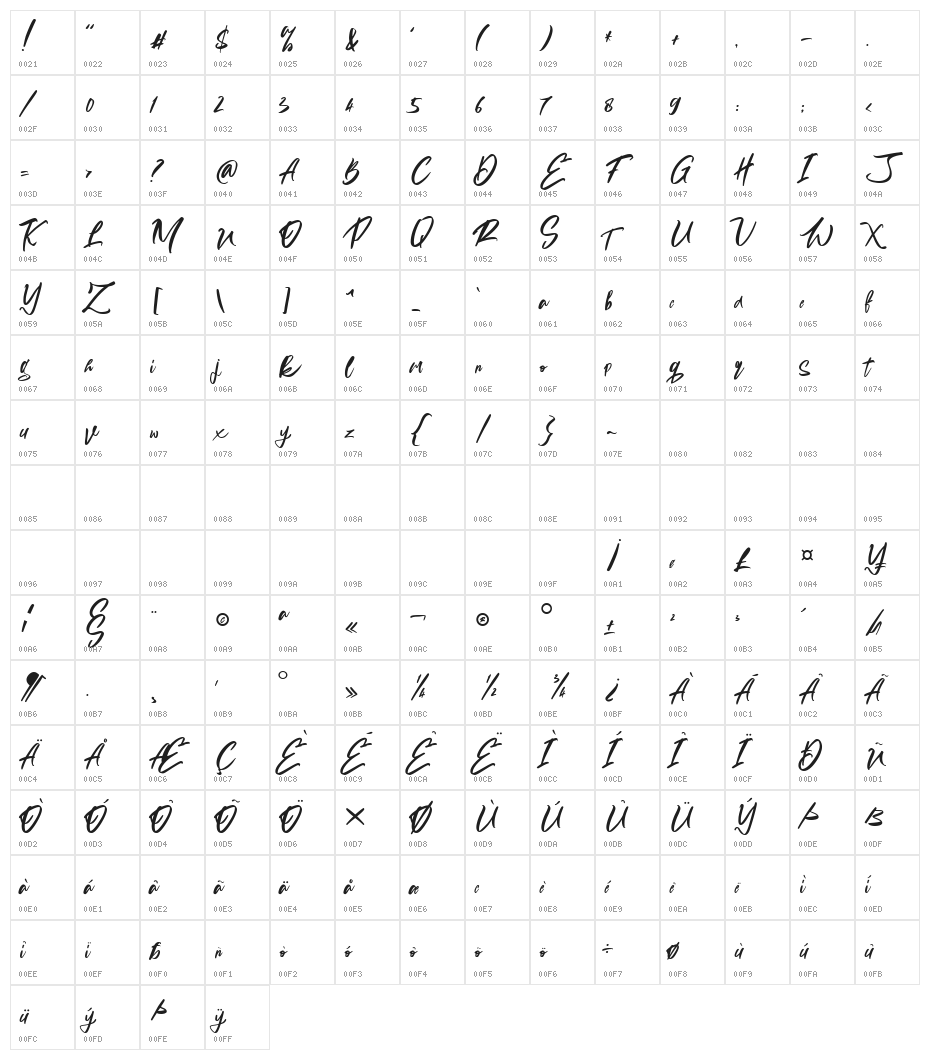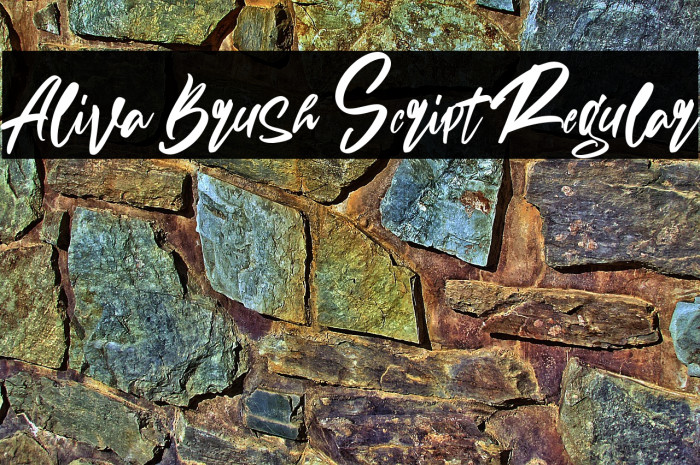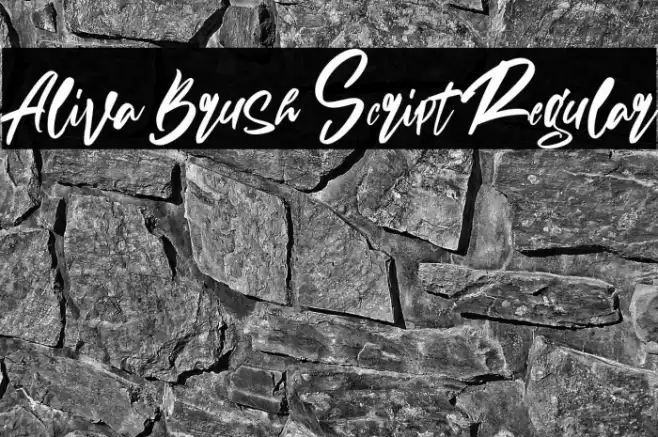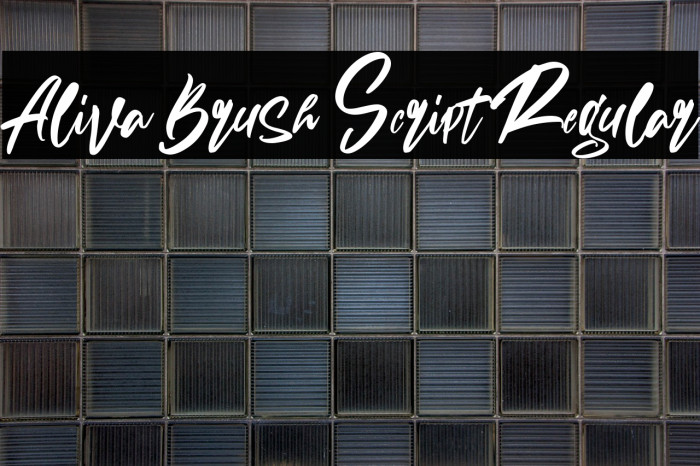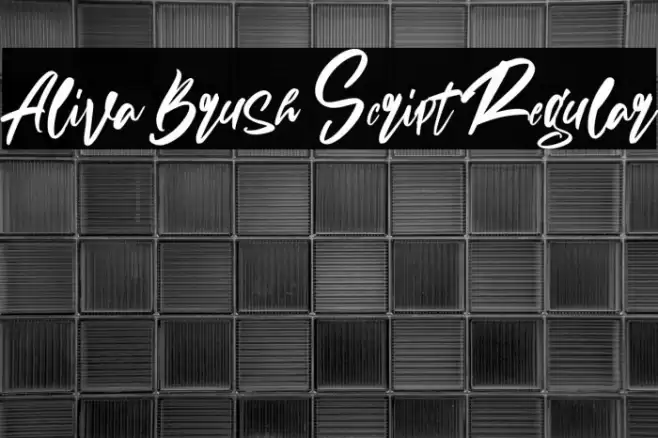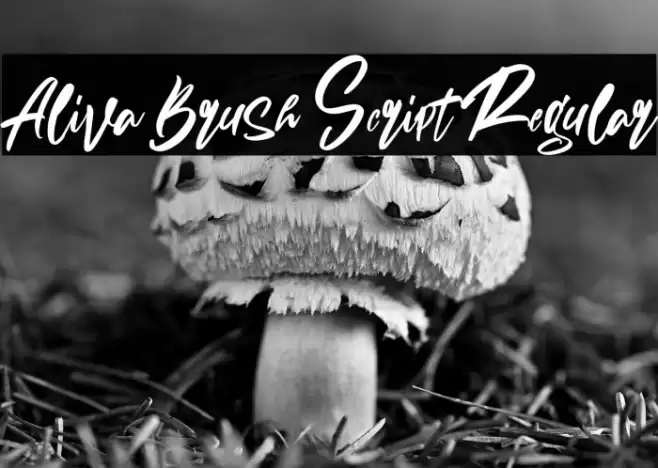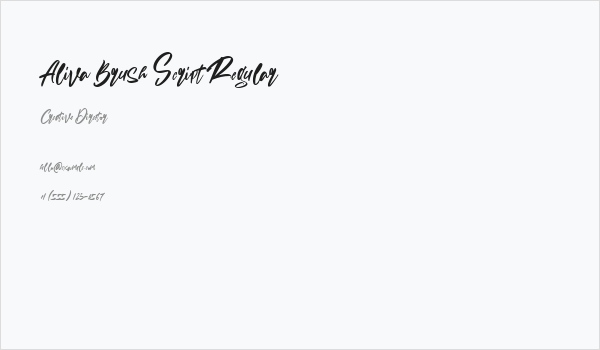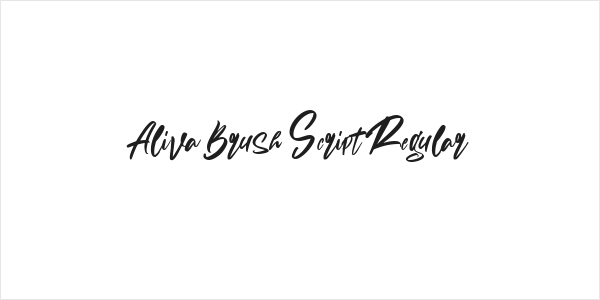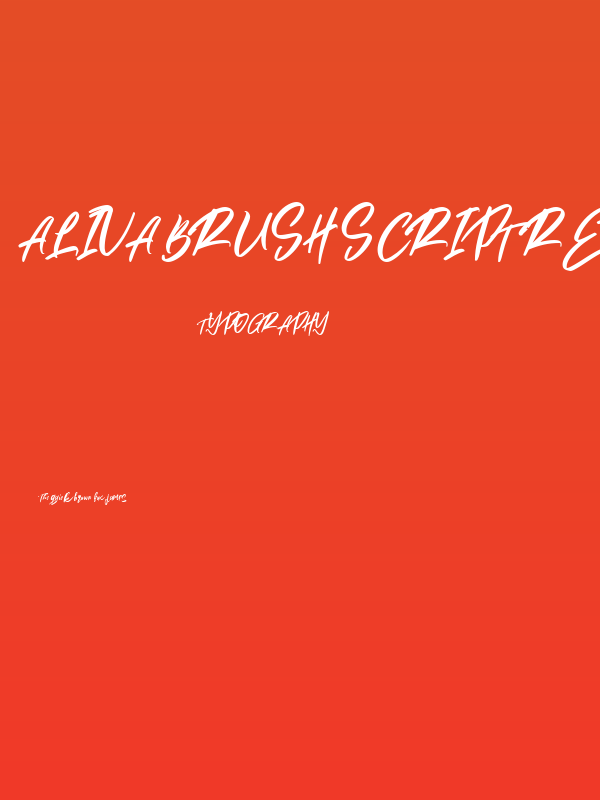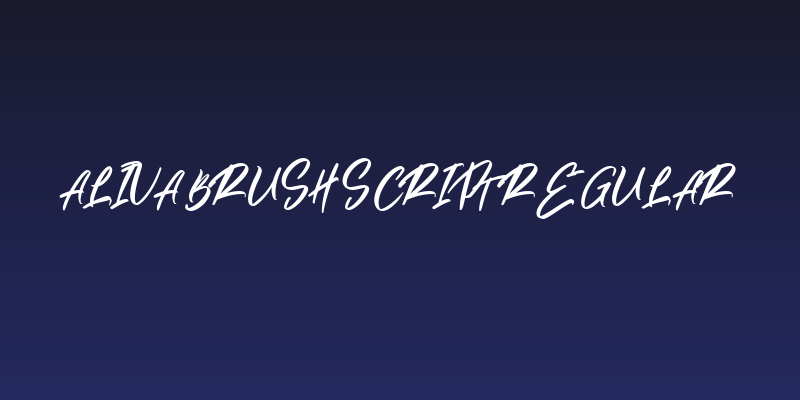
Aliva Brush Script Regular Font
Aliva Brush Script Regular Description
This font exudes a lively and dynamic character with its brush script style. The strokes are fluid and expressive, capturing the essence of handwritten calligraphy. The uppercase letters are bold and sweeping, while the lowercase letters maintain a consistent flow, adding a touch of elegance and spontaneity. The numbers and special characters are crafted with the same artistic flair, making them stand out beautifully. The overall appearance is both artistic and approachable, perfect for projects that require a personal and creative touch.
| Proposed Projects | Ideal for invitations, greeting cards, branding, and artistic posters. |